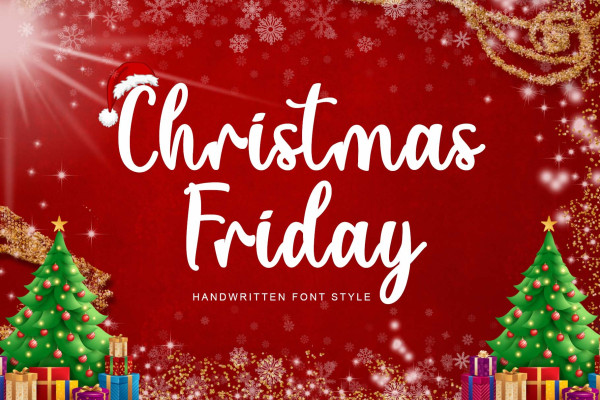
Christmas Friday Font
Christmas Friday Font is an elegant and beautiful handwritten font. This font is equipped with uppercase, lowercase, numerals, punctuation, ligatures, and multilingual support. It is suitable for Christmas, parties, birthdays, weddings, engagements, invitations, banners, and more.